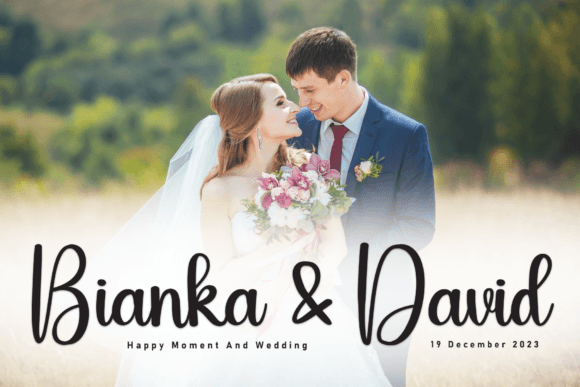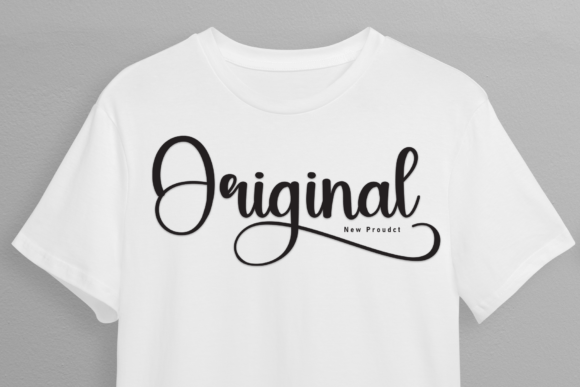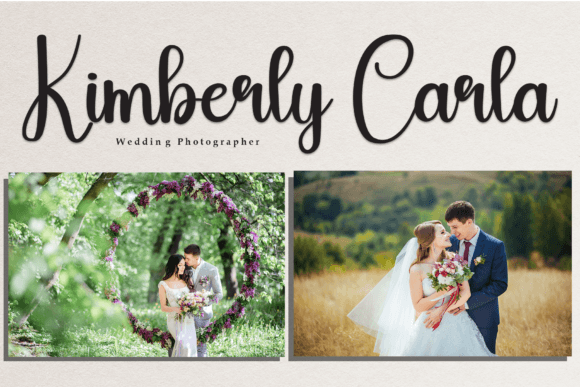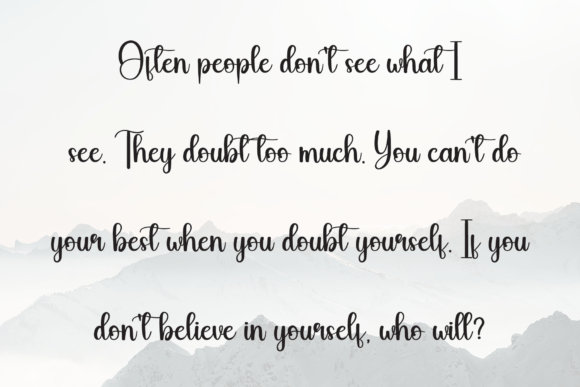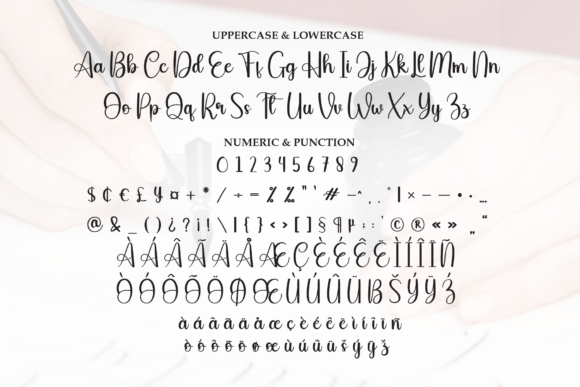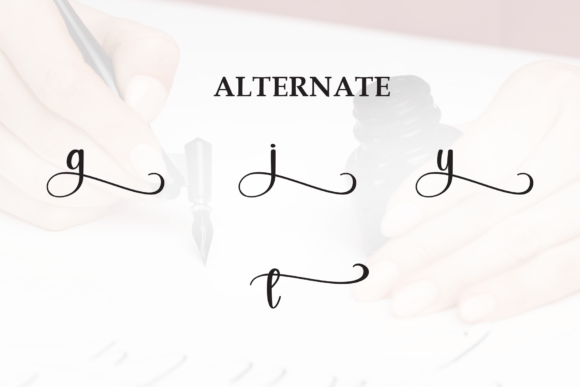
The Joy of Handwritten Touch: Discovering Autography Font
Have you ever stumbled upon a handwritten note from a loved one, and it instantly brought a smile to your face? That’s exactly the feeling you want to evoke with your designs. Whether it’s a wedding invitation, a birthday card, or a simple thank-you note, a beautiful handwritten font can add that special touch that makes it truly unforgettable.
That’s where the Autography Font comes in – a sweet and friendly handwritten font that’s perfect for adding a personal touch to your designs. This versatile font is ideal for projects that need a little extra love and care, and its cuteness is sure to charm your audience. For designers, Autography Font is a valuable asset, allowing you to create designs that feel more personal and human.
Key Features of Autography Font
- Font Family: Autography Font comes in 8 different font styles, each with its own unique characteristics and flair.
- Unique Characteristics: The Autography Font features a unique blend of modern and traditional design elements, with intricate details and flourishes that set it apart from other fonts.
Autography Font Review
Overall, I’m impressed with the Autography Font. Here are some of its standout features:
- ✨ Unique and elegant design: The font has a beautiful, cursive feel that makes it perfect for creative and artistic projects.
- ✨ High-quality rendering: The font is well-made, with clear lines and smooth curves that make it easy to read.
- ✨ Wide character set: Autography Font includes a wide range of characters, including uppercase and lowercase letters, numbers, and punctuation.
- ⚠️ Limited font weights: While Autography Font has a range of styles, it’s missing some heavier font weights that might be useful for headings or titles.
- ⚠️ Limited support for languages other than English: While the font includes a wide range of characters, it’s not designed to support languages that use non-Latin scripts.
Overall, I’d say that Autography Font is a great choice for designers looking for a unique and elegant font. While it has some limitations, its strengths make it a valuable addition to any design project.
Tips for Getting the Most Out of Autography Font
Experiment with different font sizes and colors to create visually appealing text effects. Use Autography Font in conjunction with other design elements, such as images and graphics, to add depth and interest to your designs.
Autography Font is ideal for creating personalized invitations, greeting cards, and other paper crafts. It’s also great for adding a touch of elegance to wedding stationery, party invitations, and other special occasion materials.